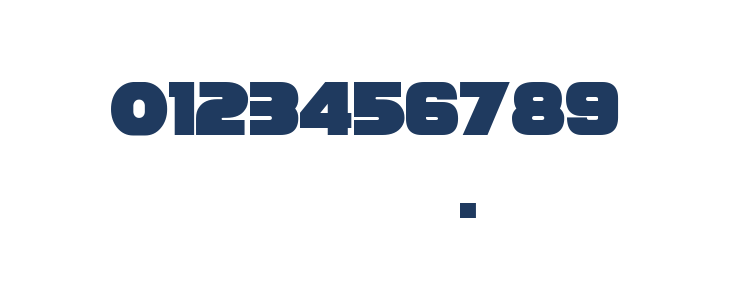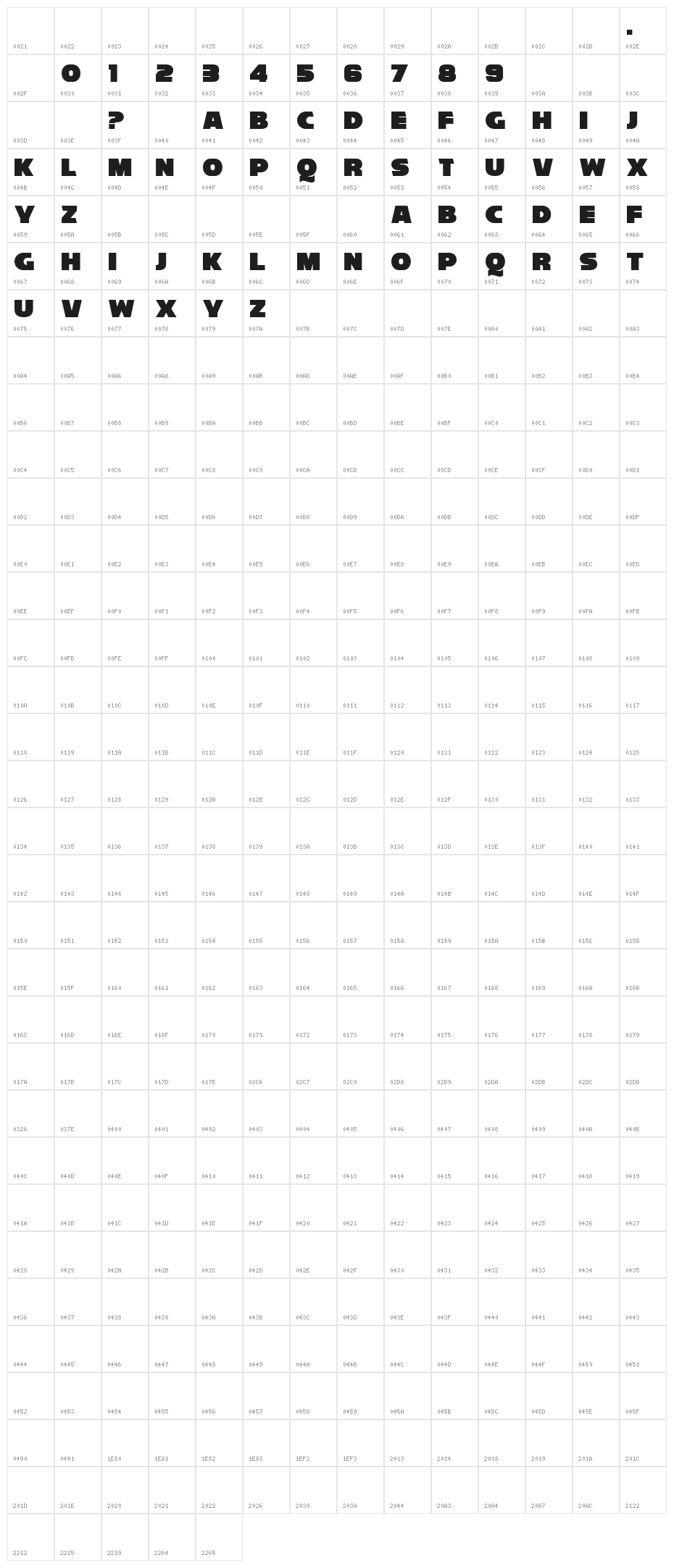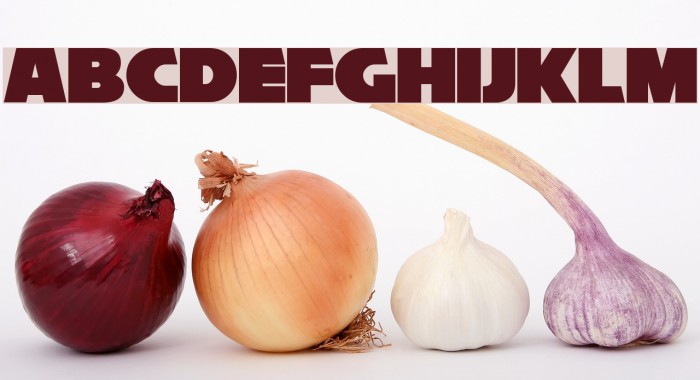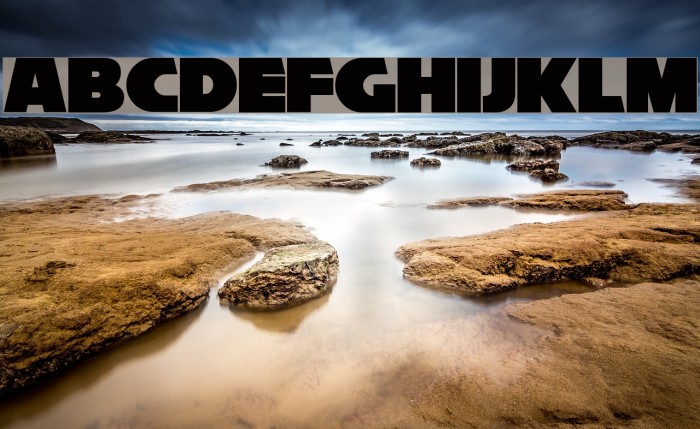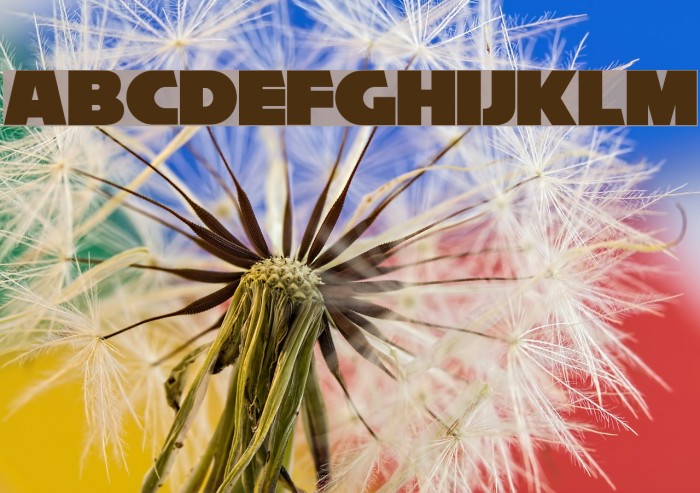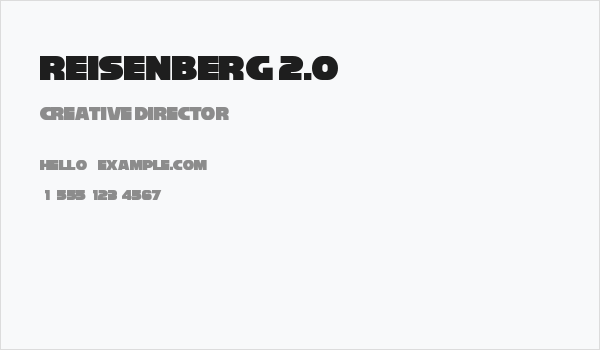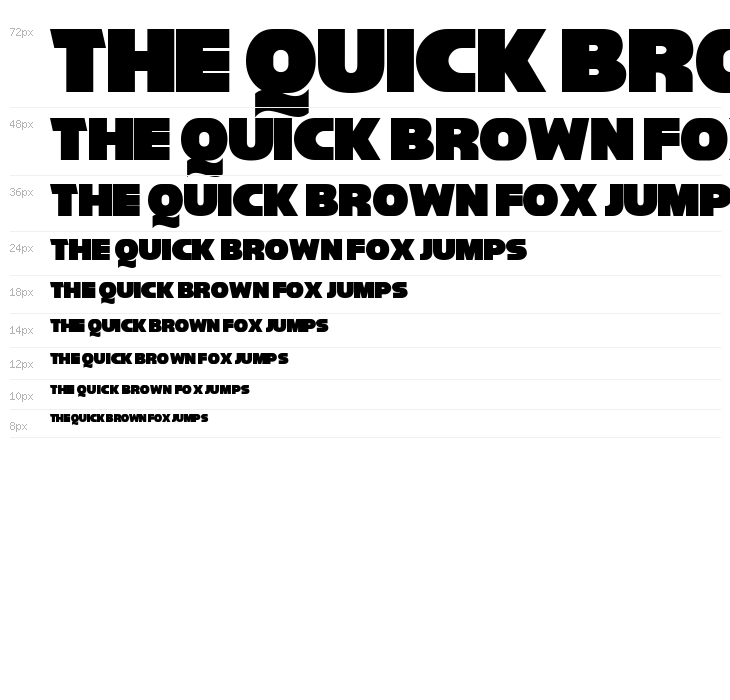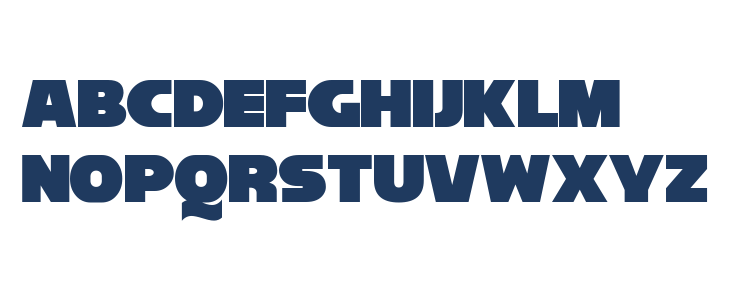
Reisenberg 2.0 Font
Reisenberg 2.0 Description
This font features bold, geometric letterforms with a strong presence. The characters are designed with a uniform stroke width, giving them a solid and impactful appearance. The uppercase letters are particularly striking, with a blocky, robust style that commands attention. The numbers follow the same bold aesthetic, ensuring consistency across all characters. The font's design is modern and assertive, making it ideal for projects that require a strong visual impact. Its clean lines and lack of serifs contribute to a contemporary look, while the uniformity in stroke width adds to its cohesive appearance.